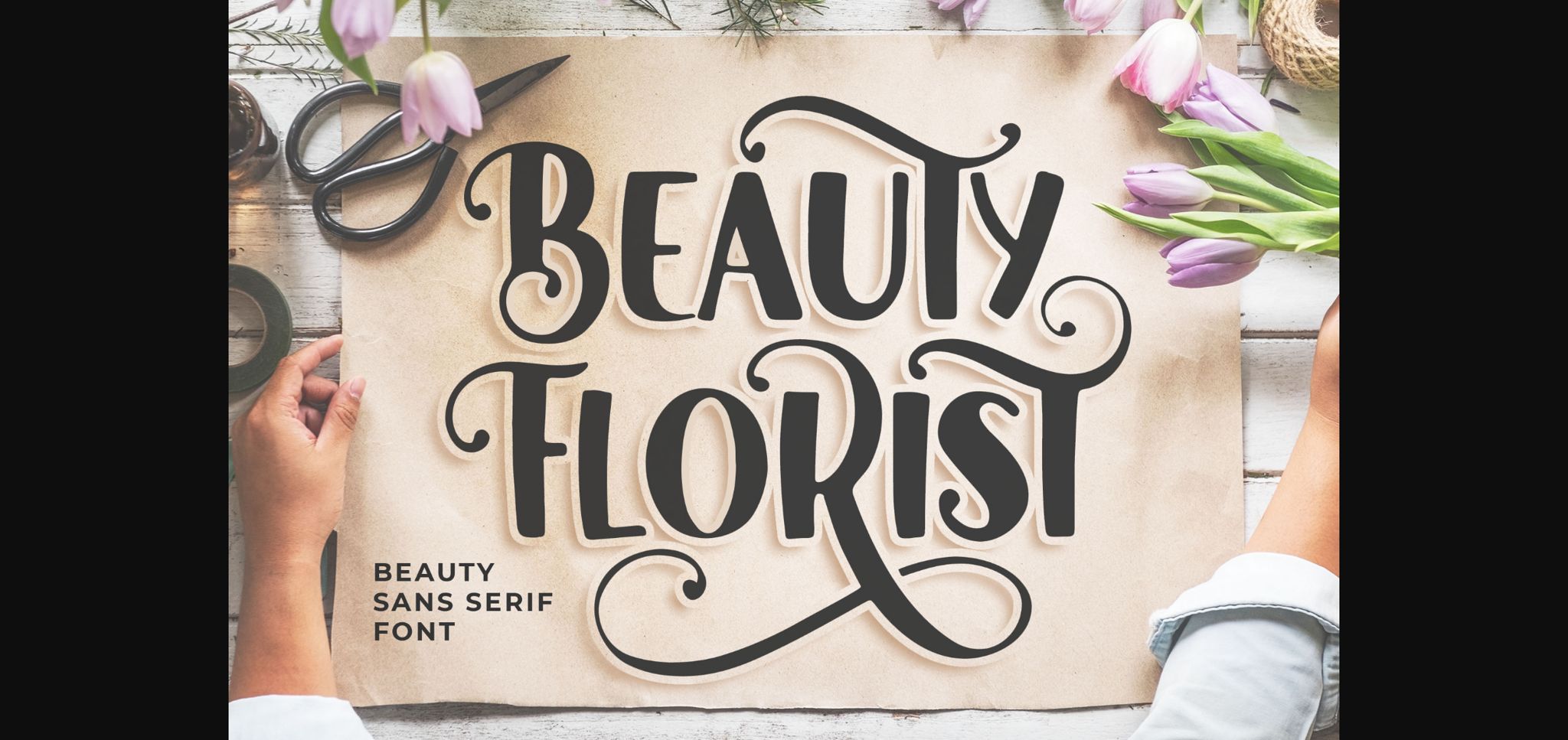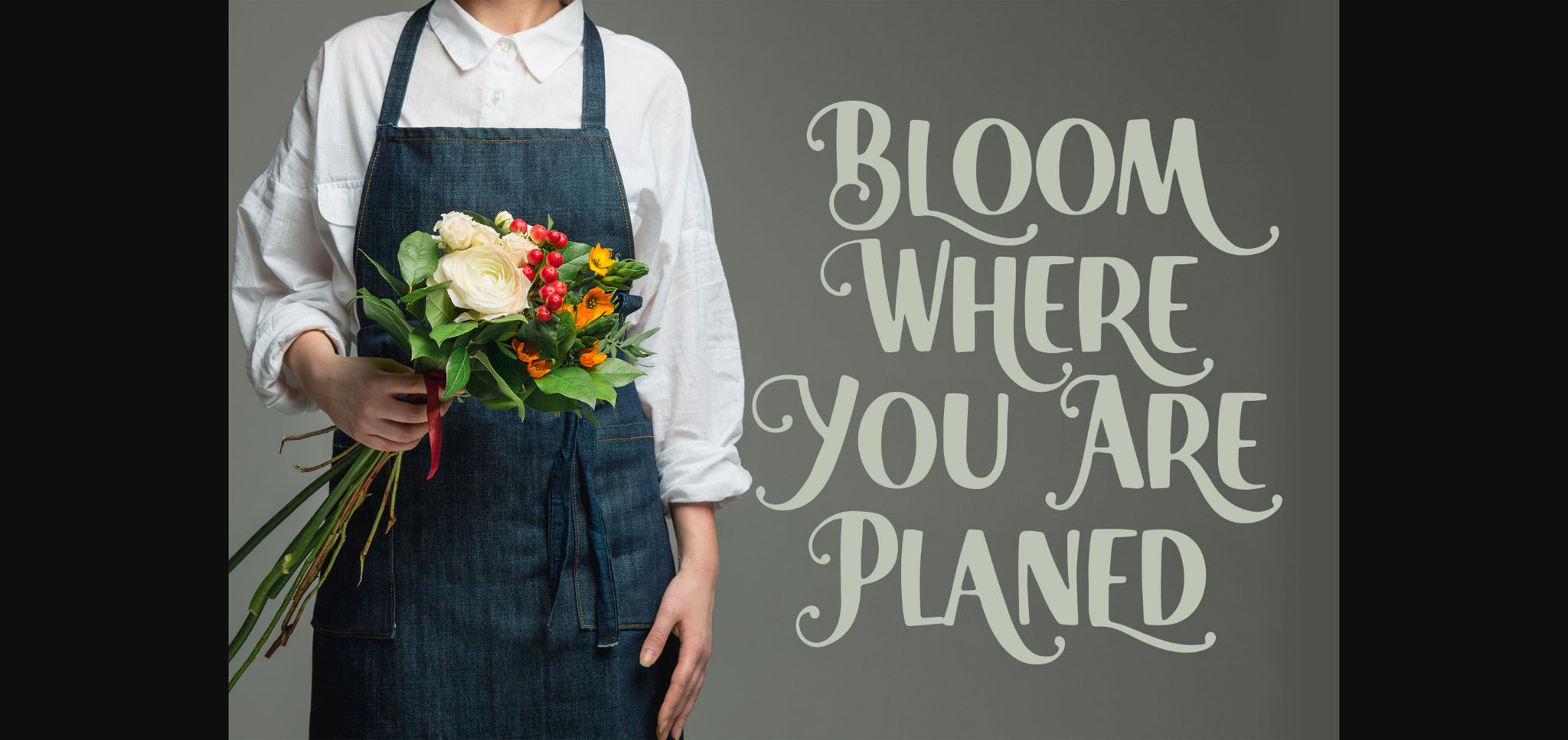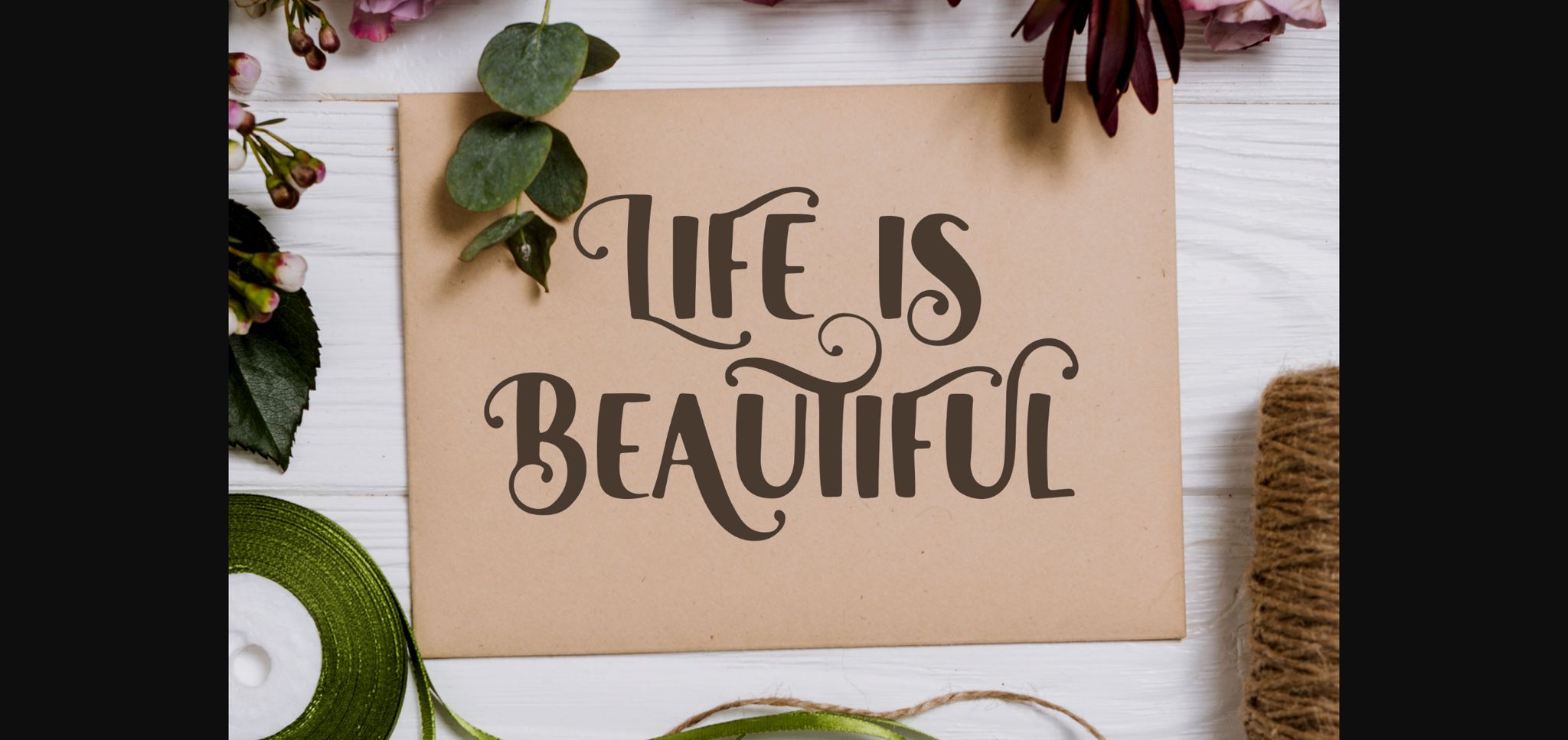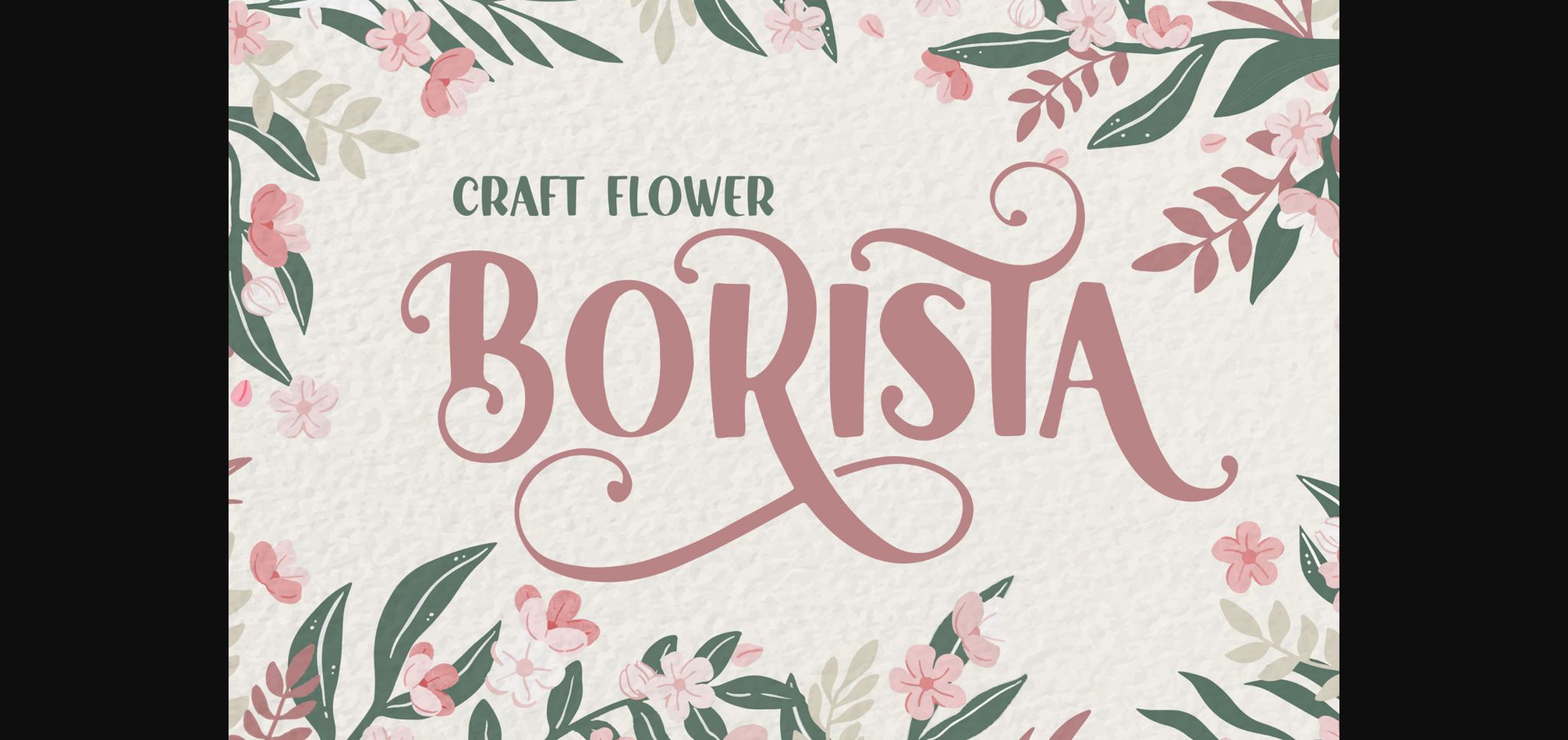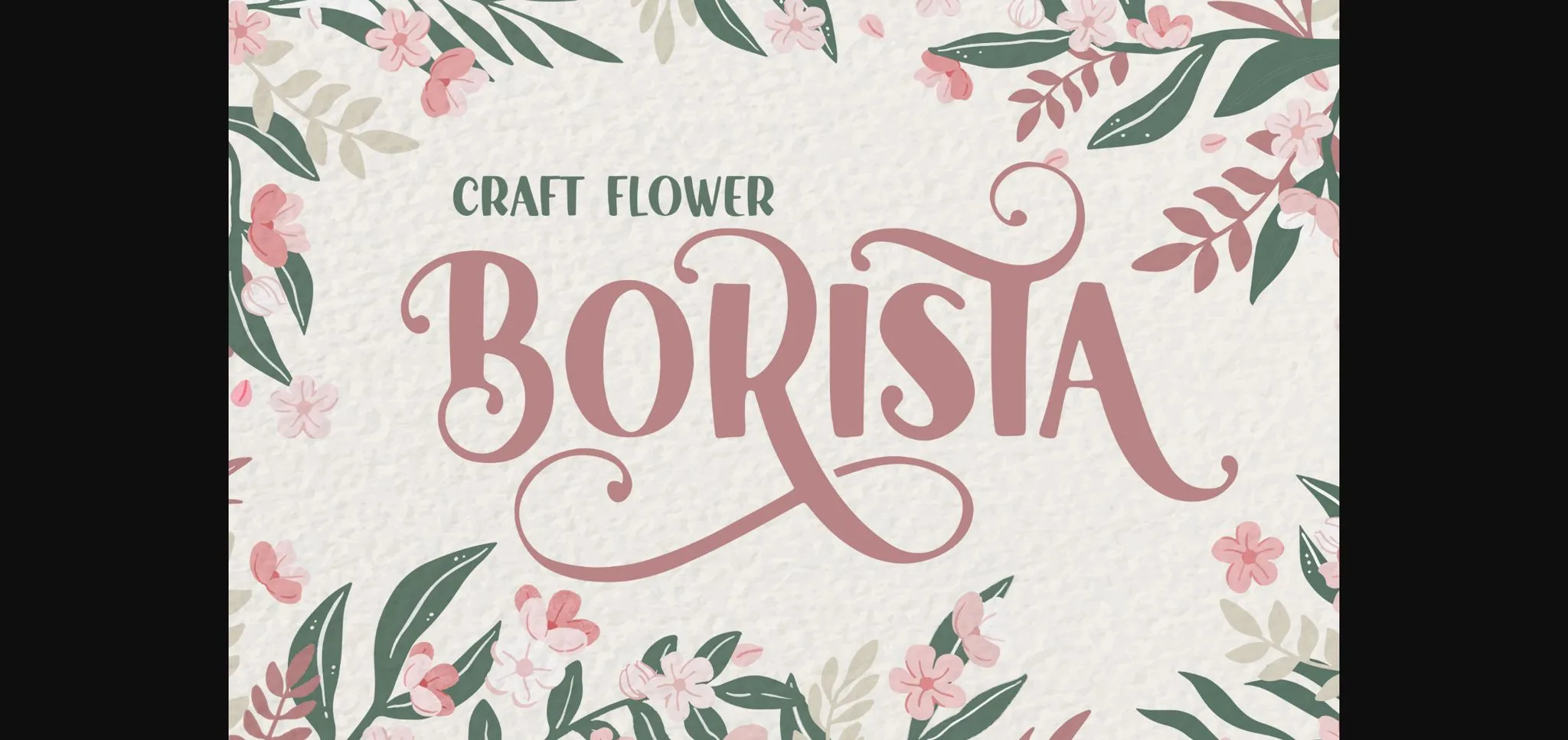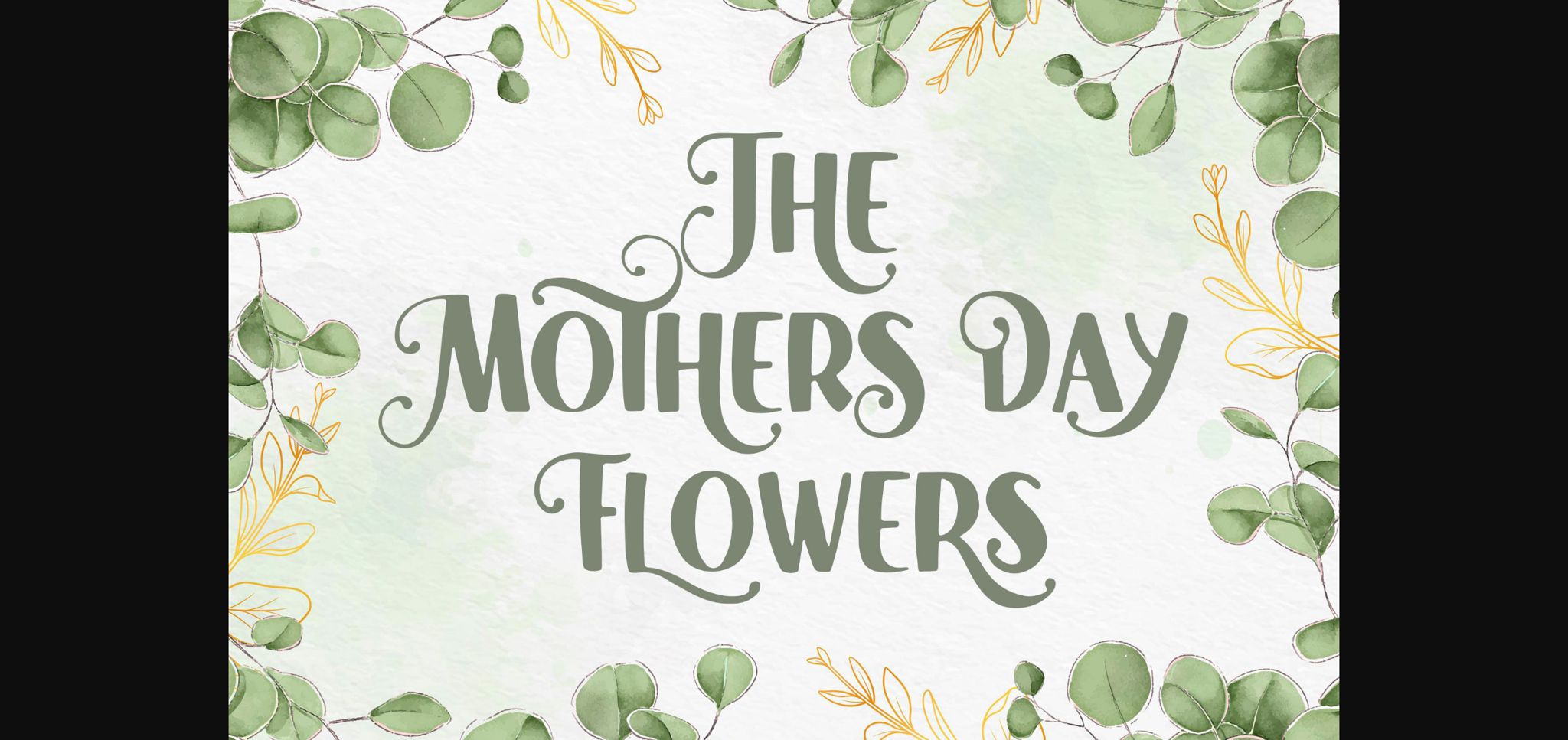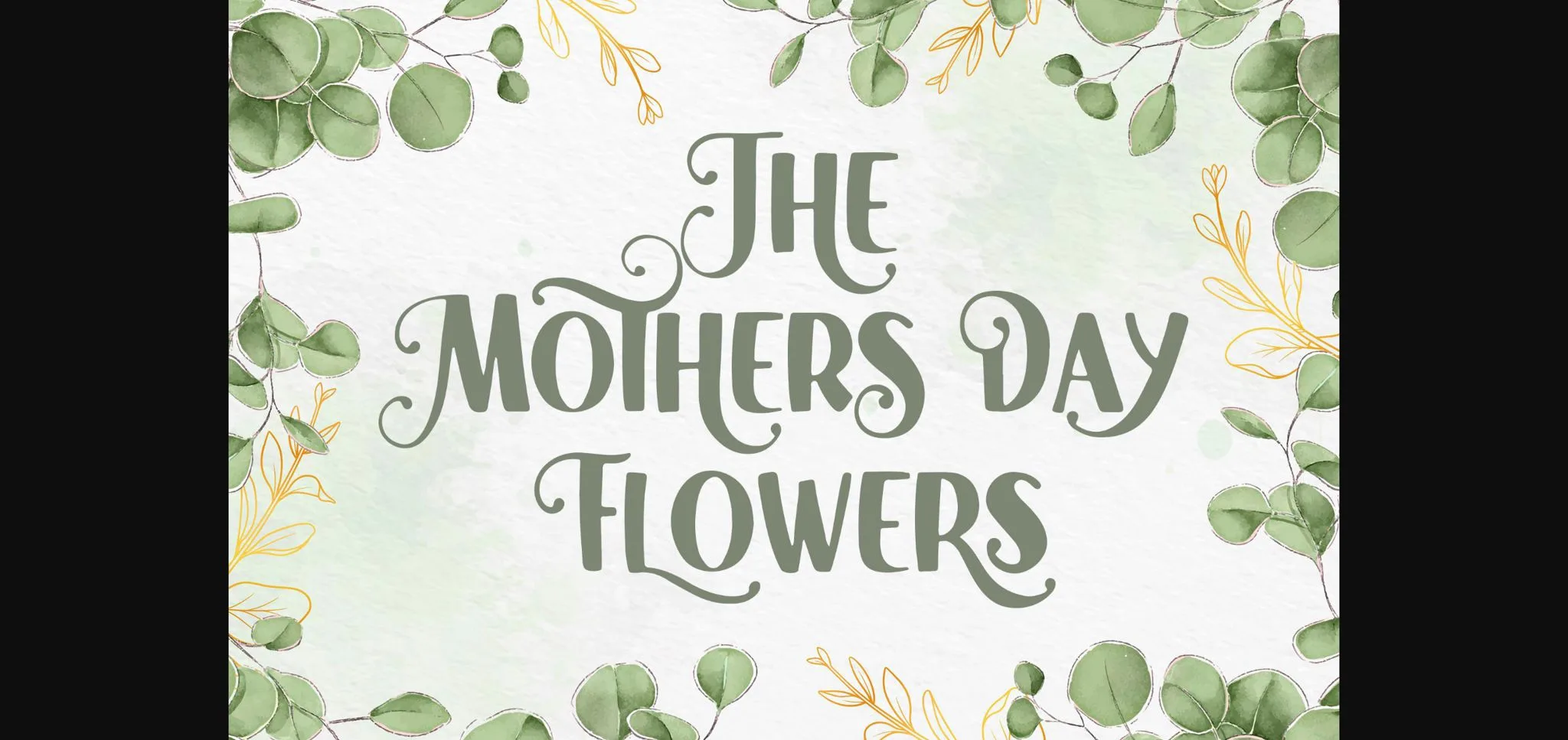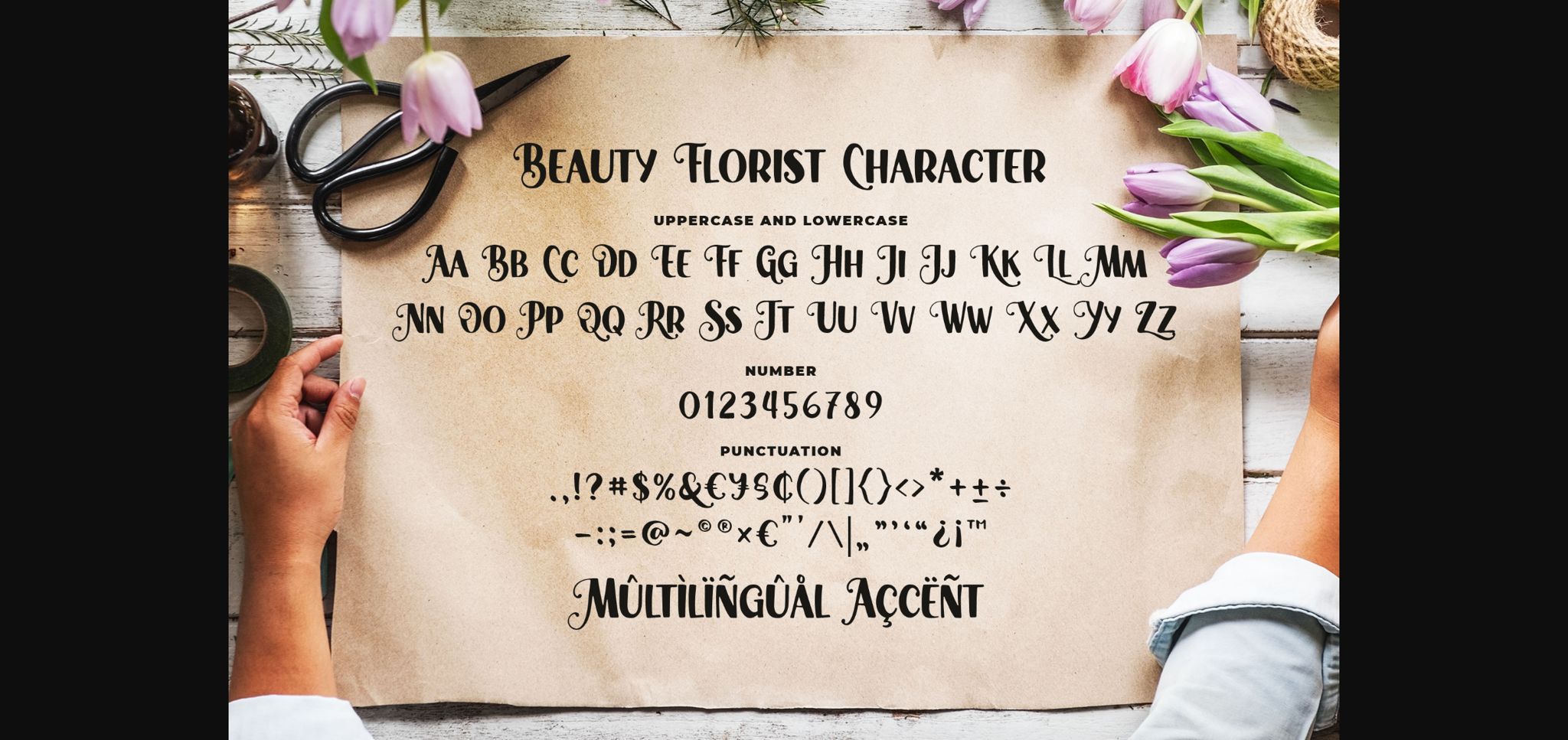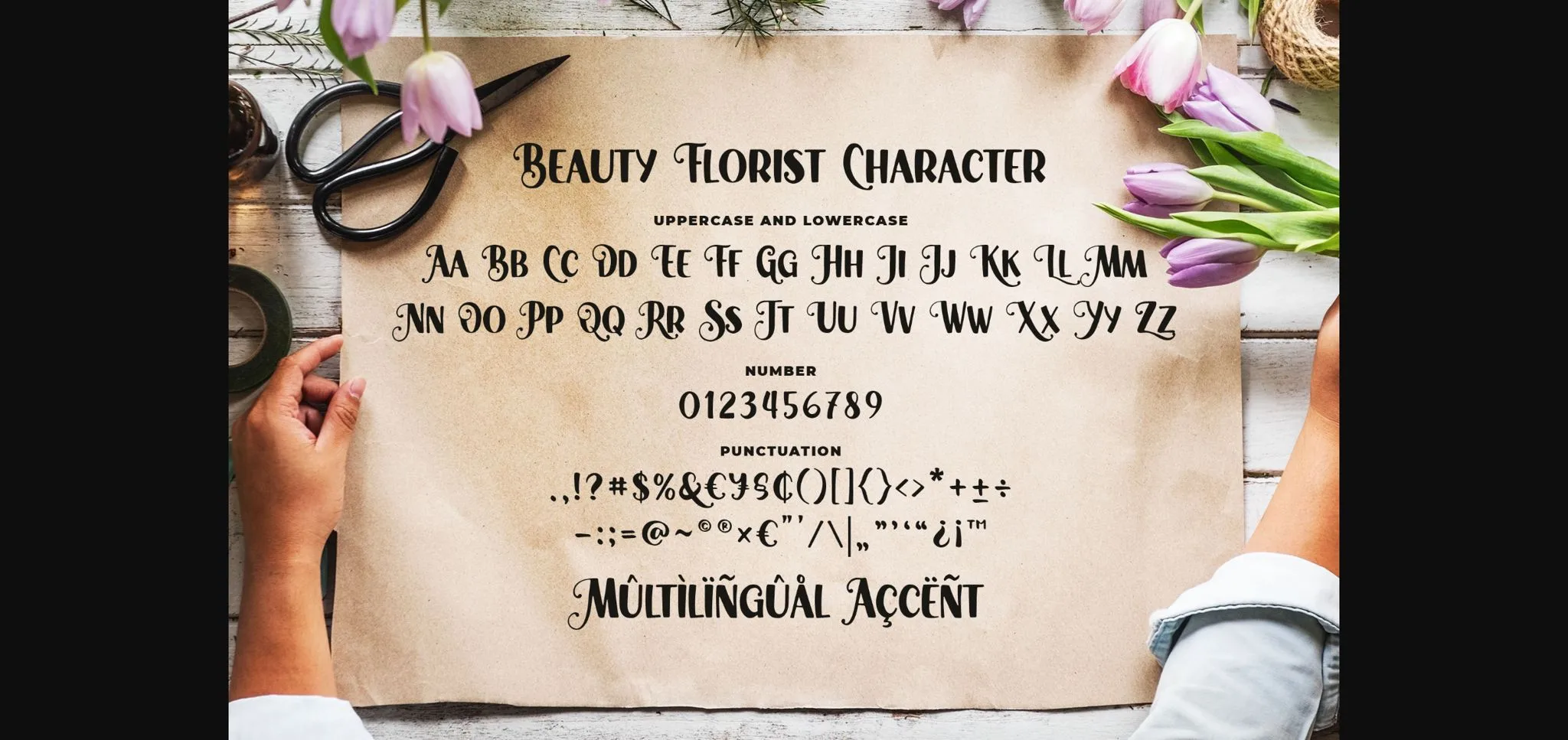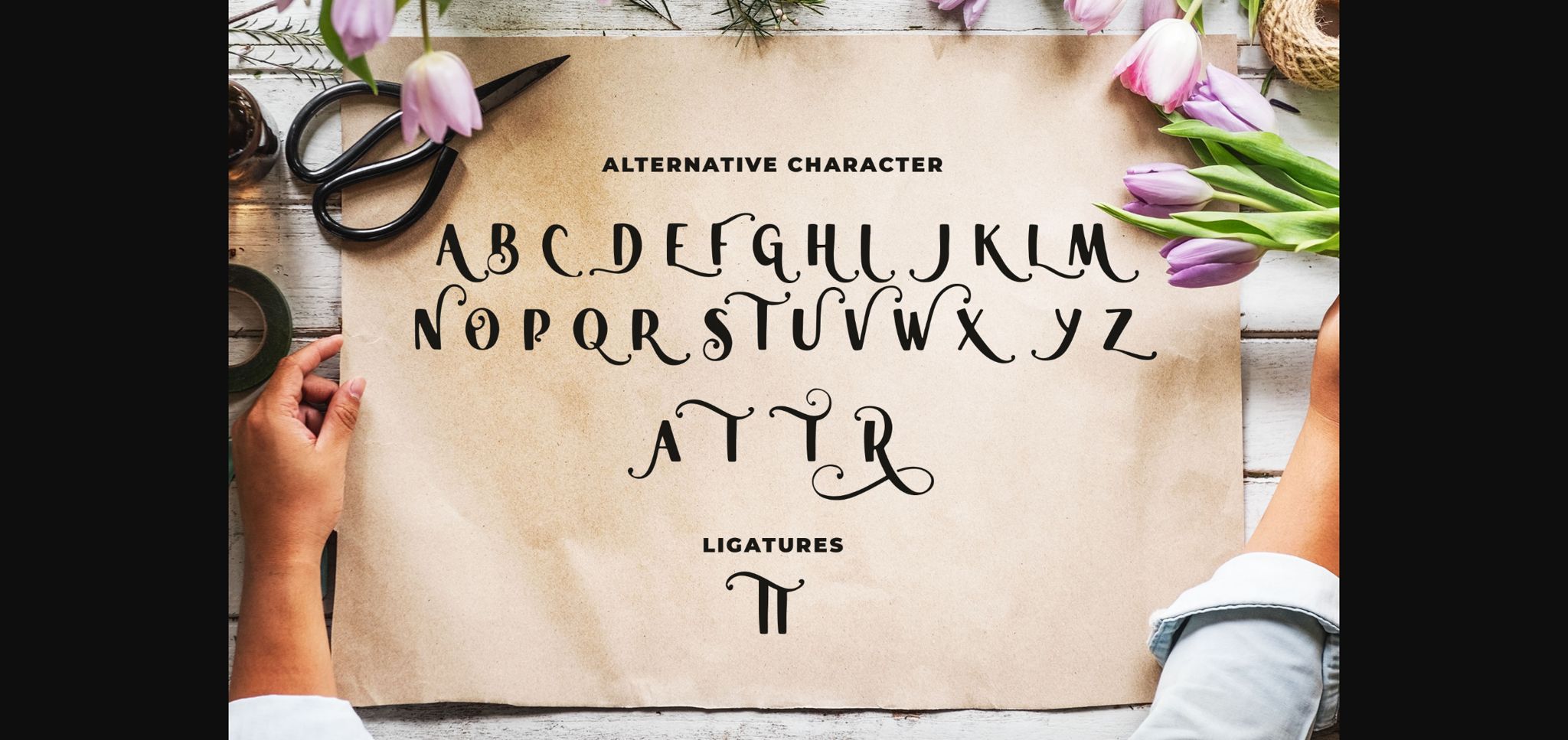
HomeSans Serif FontsBeauty Florist Font Sans Serif Fonts Beauty Florist Font FacebookXPinterestWhatsApp 1 of 10 ... Beauty Florist Font Poster 2... Beauty Florist Font Poster 3... Beauty Florist Font Poster 4... Beauty Florist Font Poster 5... Beauty Florist Font Poster 6... Beauty Florist Font Poster 7... Beauty Florist Font Poster 8... Beauty Florist Font Poster 9... Beauty Florist Font Poster 10... About Beauty Florist Font Beauty Florist is a joyful and elegant sans serif font. Distinct and incredibly versatile, this font will be the ideal choice for a wide range of designs. DOWNLOAD NOW People also explored Statendam Subway Mosaic Wall Rustic Brown Font Samantha Font Stunning Girl Font Betterside Font Everything Alright Font Kids Super Font Merry Cost Font 239 0 TagsBeauty Florist Font Previous articleHymala FontNext articleMoon Font LEAVE A REPLY Cancel reply Comment: Please enter your comment! Name:* Please enter your name here Email:* You have entered an incorrect email address! Please enter your email address here Website: Save my name, email, and website in this browser for the next time I comment. Personal Use Free Squariess Personal Use Free Read more about this font Vembazax Rm Personal Use Free Read more about this font Allea Sweet Personal Use Free Read more about this font Sweet Cake Personal Use Free Read more about this font BLOG Free vs Paid Fonts: Why Investing in Premium Fonts Is Worth It Free vs Paid Fonts: Why Premium Fonts Are Worth It in 2025 The debate of free vs paid fonts continues in the design world. While... Top 10 Handwritten Fonts That Elevate Your Designs How to Install and Use Fonts on Windows, macOS, and Web Projects The 10 Best Handwriting Fonts to Add Personality to Your Designs